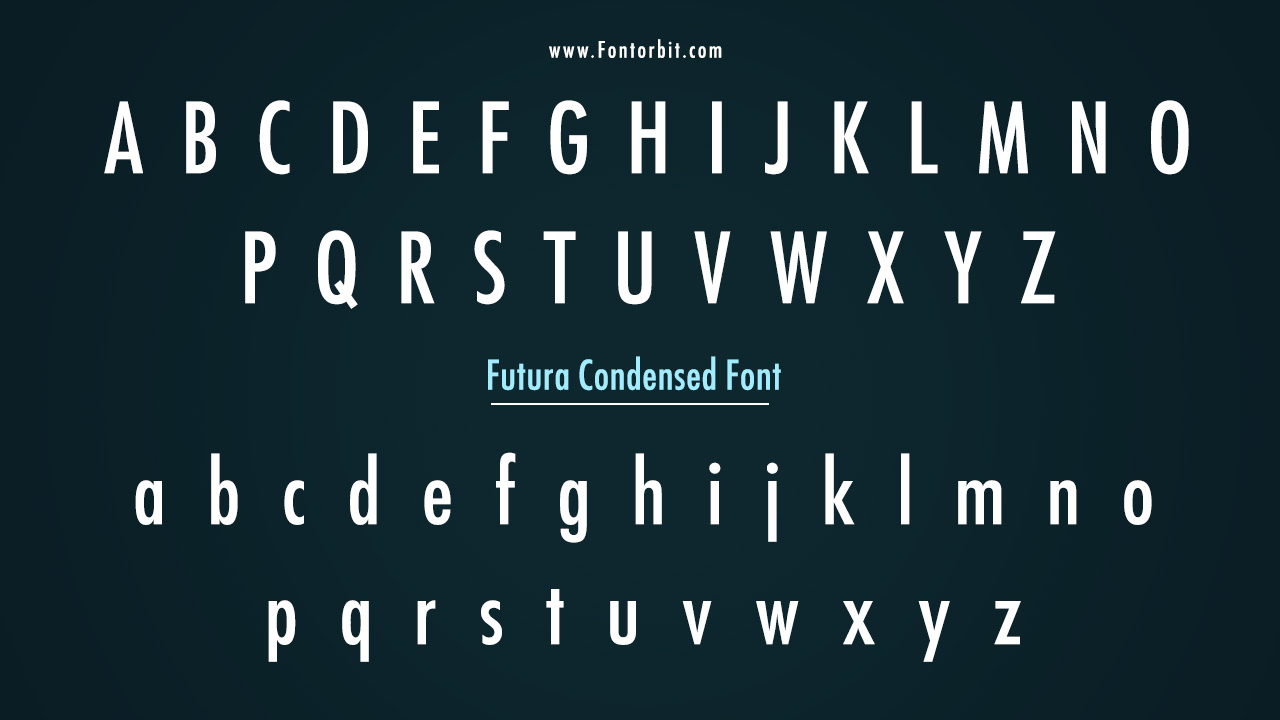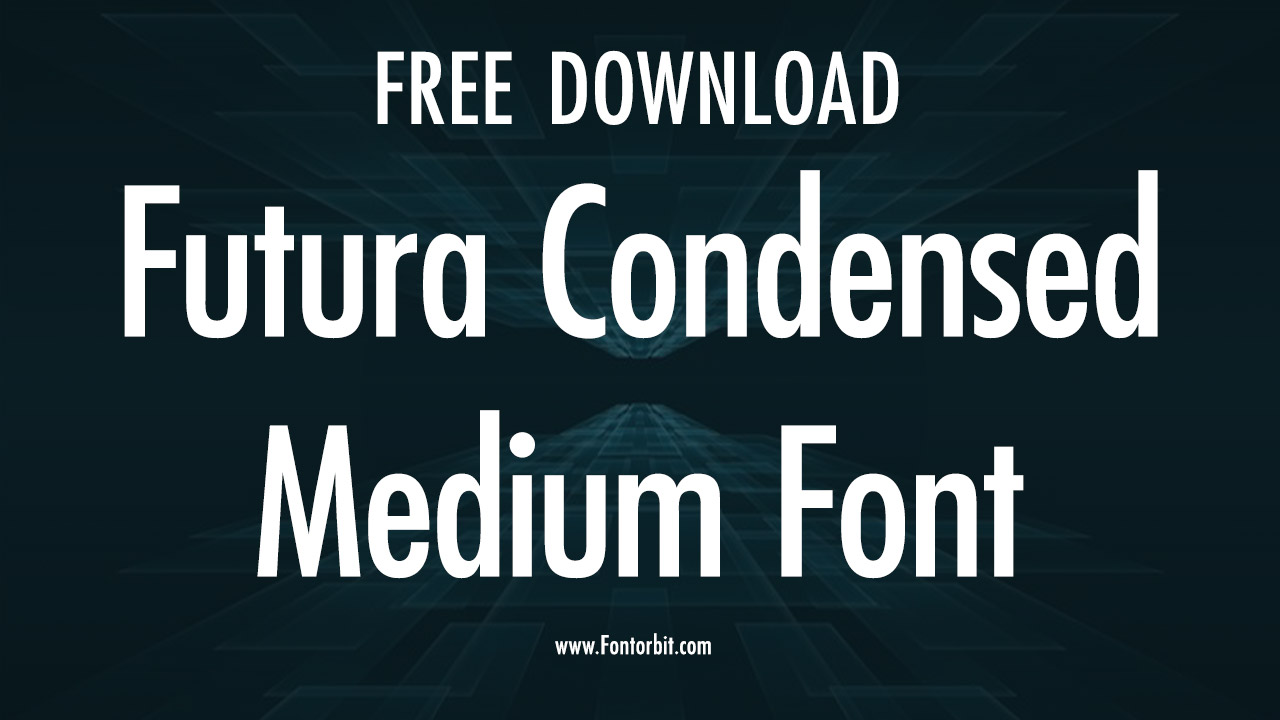
Isabella Chaeva, Paul Renner, Vladimir Andrich, and Vladimir Yefimov designed Futura Condensed, a modern geometric sans-serif typeface, and the Bauer Type Foundry published it in 1927.
Futura Condensed is a member of the Futura font family, known for its clean, minimalistic, and highly legible design. Its condensed style makes it ideal for tight spaces while maintaining readability, making it a popular choice in editorial design, advertising, and packaging.
The Futura Condensed family is versatile and offers different weights and styles, providing flexibility in design. It is well-known for its sleek, narrow letterforms, which are highly effective for condensed layouts without compromising clarity.
Notable Uses Of Futura Condensed
Designers widely use Futura Condensed in branding, advertising, and print media. Its striking and bold appearance has made it popular in movie posters, album covers, and book designs. Notable examples include:
- Wes Anderson’s films (notably The Royal Tenenbaums)
- Vogue Magazine
- Volkswagen advertisements
- IKEA catalogs
Futura Condensed is ideal for situations requiring a sleek, modern, and space-saving font. You should use it for:
- Print layouts like magazines, brochures, and posters
- Digital media, such as websites and social media graphics
- Corporate branding, especially for minimalist designs
- Packaging design, where space is a premium
Futura Condensed continues to be a popular font choice for designers who want a balance between modern minimalism and versatility. Its geometric precision, paired with an aesthetically pleasing condensed design, has ensured its ongoing relevance in both digital and print design.
1.What Type Of Font Is Futura Condensed?
It’s a geometric sans-serif typeface.
3.Can I Use Futura Condensed For Web Design?
Yes, it works well for websites requiring a modern, clean look.
4.What Is The Most Similar Font To Futura Condensed?
Many designers highly recommend Roboto Condensed as an alternative.
5.Is Futura Condensed A Good Font For Logos?
Yes, its sleek and clean style makes it ideal for logo design.
6.What Is Futura Condensed Best Used For?
It’s best for print layouts, packaging, and branding.
8.What Fonts Pair Well With Futura Condensed?
Futura Condensed pairs well with serif fonts like Garamond and slab serifs like Rockwell.